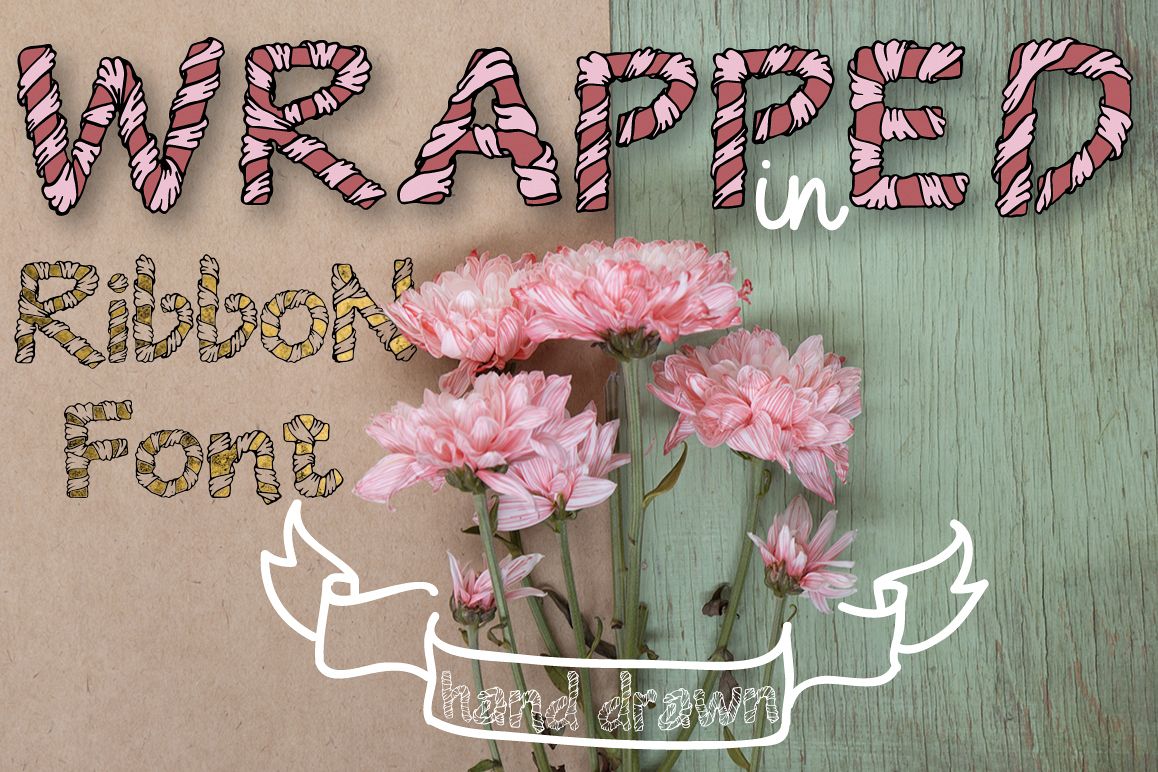
Wrapped in ribbon sketch font
Hand drawn wrapped in ribbon font. Perfect for retro projects, greeting cards, typography work and more. You can see all the letters, numbers and symbols on 6 preview.This set includes: